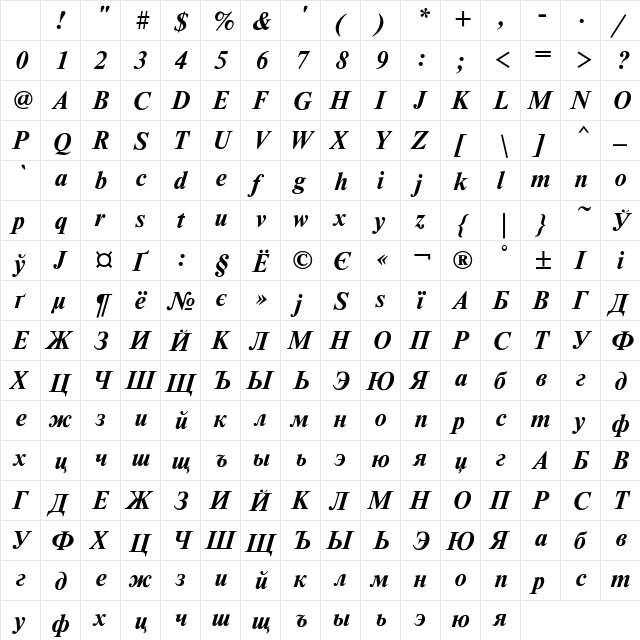
TimesET is a composed and adaptable typeface that performs quietly and consistently across a wide range of design contexts. The slanted form adds forward momentum and visual energy. Its bold stroke weight gives it real presence on the page.
Pro Tip: Use TimesET for emphasis, pull quotes, and subheadings where its slanted energy can add rhythm to the layout.